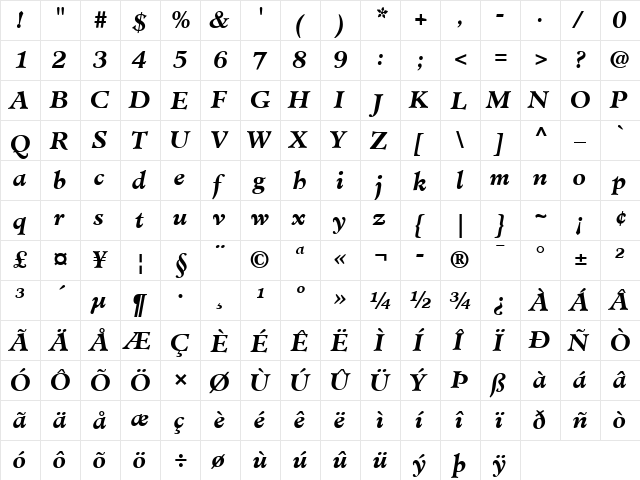
Minister LT Book Bold Italic Font Preview
Minister LT Book Bold Italic
Design Context for Minister LT Book Typeface
Minister LT Book offers clean, dependable letterforms without strong stylistic allegiance, making it a practical choice for designers who need flexibility. Its italic angle brings a sense of urgency and motion to the letterforms. Its bold stroke weight gives it real presence on the page.
Pro Tip: Use Minister LT Book for emphasis, pull quotes, and subheadings where its slanted energy can add rhythm to the layout.